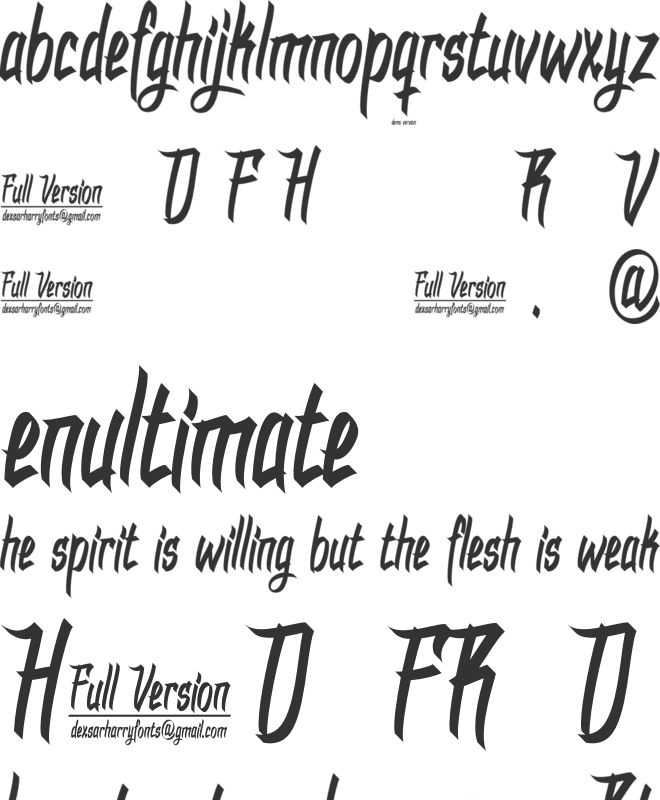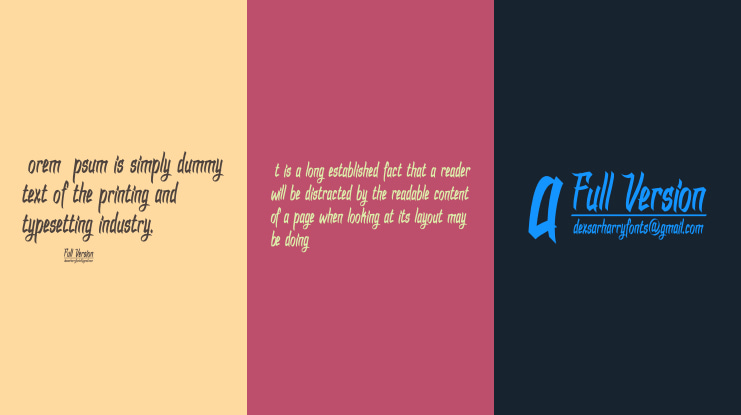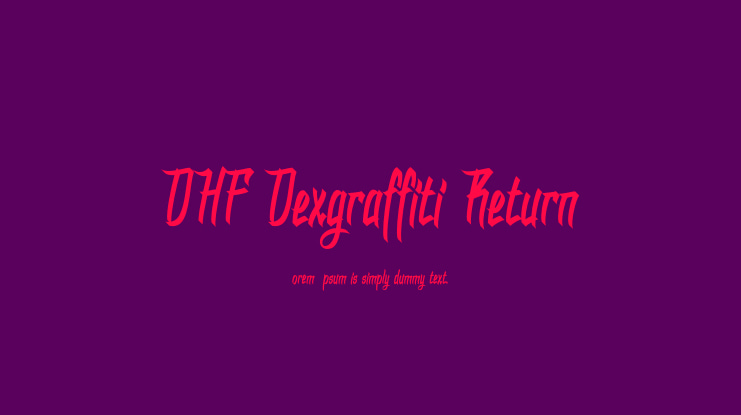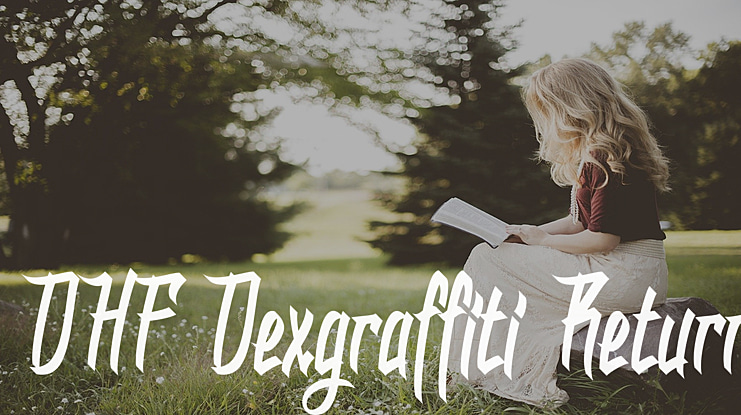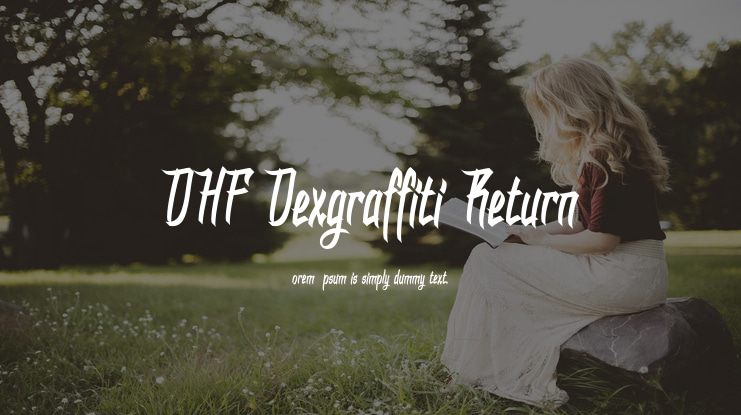
DHF Dexgraffiti Return Font
Dexsar Harry Anugrah
Dexgraffiti Return is Calligraffiti font that come with + 250 Glyph and equipment with opentype feature.